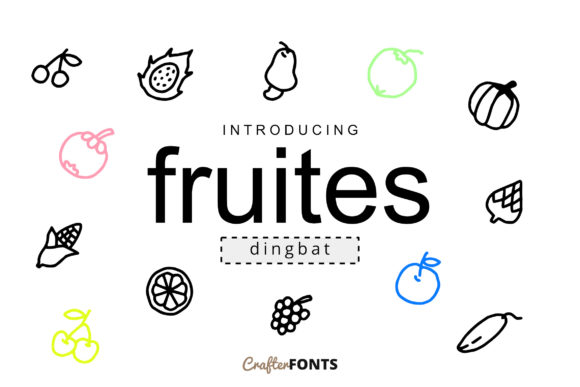
Welcome to the realm of Fruites Doodle Font, where creativity and inspiration intertwine. Unleash your artistic spirit with this enchanting dingbats font, a treasure trove of fruity delights waiting to adorn your designs. Each character bursts with vibrant colors, whimsical shapes, and playful motifs, inviting you on a delectable journey through the world of fruits and flavors.
Fruites Doodle Font embraces the essence of summer's bounty, capturing the sweet aroma of ripe berries, the juicy burst of citrus, and the tropical allure of exotic fruits. It's a font that speaks to the senses, evoking memories of sun-drenched days and lazy afternoons spent under the shade of fruit trees. Let your imagination run wild as you incorporate Fruites Doodle Font into your creative projects, bringing a touch of fruity whimsy to everything you create.
Whether you're designing invitations for a summer soirée, creating eye-catching social media posts, or crafting personalized gifts for your loved ones, Fruites Doodle Font is the perfect companion. Its versatility knows no bounds, lending itself seamlessly to a multitude of projects, from playful branding and packaging designs to cheerful illustrations and eye-catching website graphics.
Immerse yourself in a world of fruity delights with Fruites Doodle Font, a font that's sure to add a splash of color and a dash of sweetness to all your creative endeavors. Let your imagination run wild as you explore the endless possibilities that await you with this charming and versatile font. Embrace the joy of creativity and let Fruites Doodle Font be your guide to a world of fruity fun and playful designs.